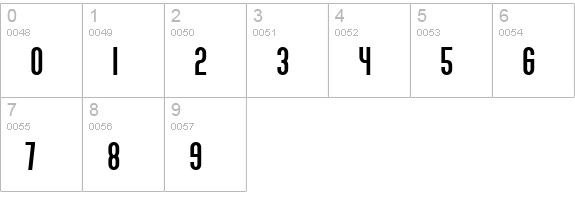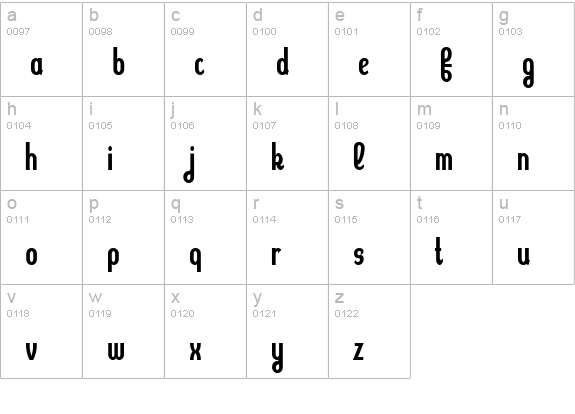
Kleptocracy Font Details
Introducing Kleptocracy, a captivating and bold font that effortlessly captures the essence of power and authority. With its strong and commanding presence, Kleptocracy is the perfect choice for projects that demand attention and make a bold statement. This font exudes a sense of sophistication and elegance, while still maintaining a modern and contemporary feel. Its clean lines and well-defined letterforms create a professional and polished appearance, suitable for a wide range of design applications. Kleptocracy is not only visually striking, but it also offers a sense of freedom. As a freely available font, it empowers users to explore their creative boundaries without any limitations. Whether you're designing a logo, a poster, or a website, this font will add a touch of distinction and creativity to your work. To make it even more accessible, Kleptocracy is available to download for free at FontsMarket.com. This means that you can easily incorporate this stunning font into your projects without breaking the bank. With just a few clicks, you'll have access to a font that will undoubtedly elevate your designs and leave a lasting impression. Don't miss out on the opportunity to enhance your creative endeavors with the remarkable Kleptocracy font. Download it for free today at FontsMarket.com and experience the freedom and impact it brings to your designs.